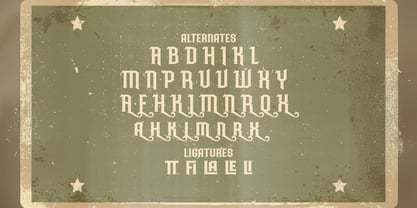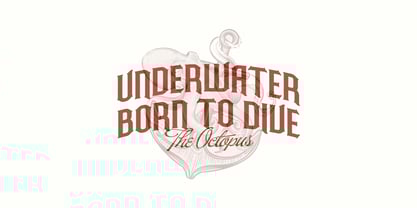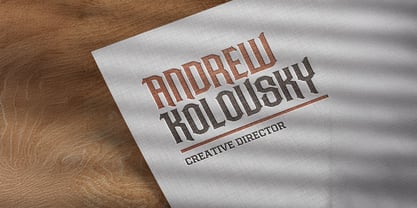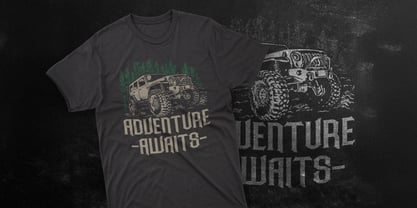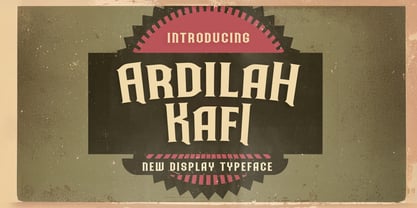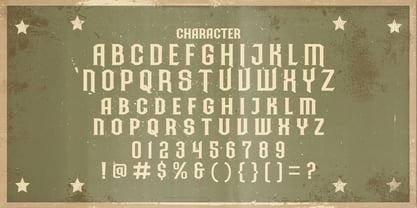
Ardillah Kafi
by Stringlabs Creative Studio
The Ardillah Kafi Font Family was designed by Virgiawan Listanto and published by Stringlabs Creative Studio. Ardillah Kafi contains 1 styles. More about this family
Ardilah Kafi is a Victorian style font that captures the ornate beauty and timeless elegance of 19th-century design. Featuring intricate curves, sharp serifs, and a majestic presence, Ardilah Kafi is perfect for adding vintage charm and refinement to any creative project. Ideal for branding, packaging, invitations, posters, and editorial layouts, Ardilah Kafi brings an air of nobility and grandeur to your work.
Designers: Virgiawan Listanto
Foundry: Stringlabs Creative Studio